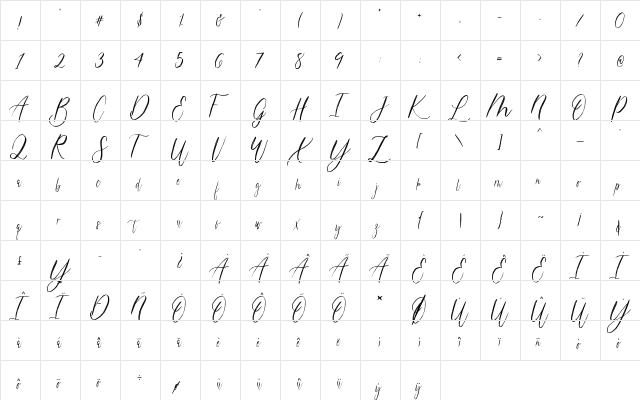
magdalena script Regular
magdalena script flows with the natural rhythm of handwritten lettering, making it ideal for designs that call for warmth and personal expression.
Font Pairing: Combine magdalena script with a simple geometric sans for maximum contrast — the tension between flowing curves and clean structure is a classic typographic pairing.
Pro Tip: Pair magdalena script with a clean sans-serif for supporting text. The contrast between fluid script and geometric structure creates an elegant typographic hierarchy.